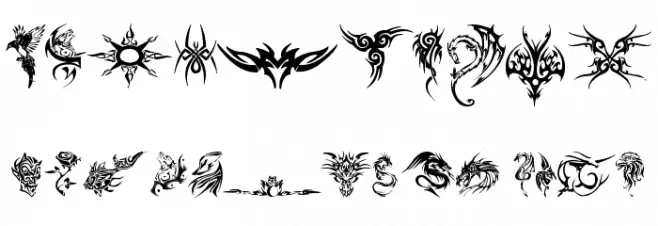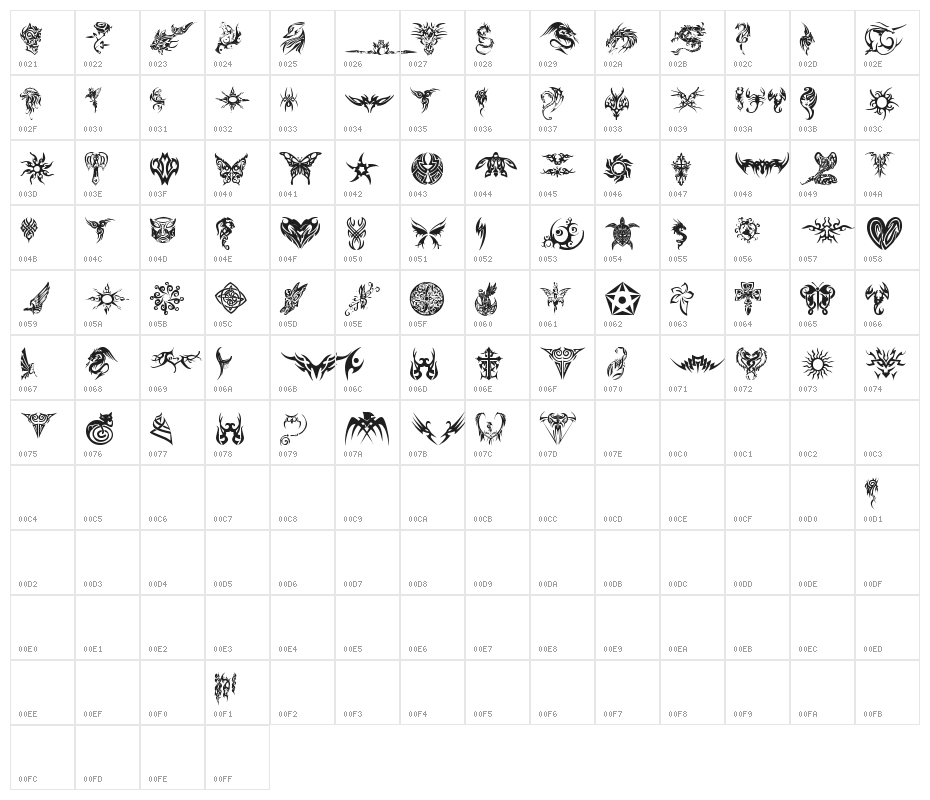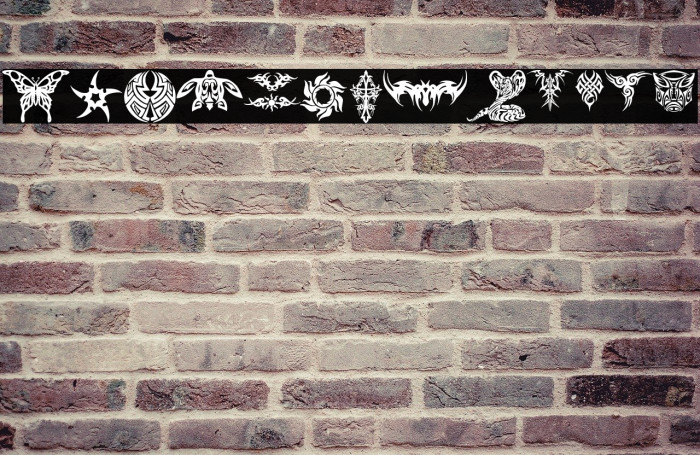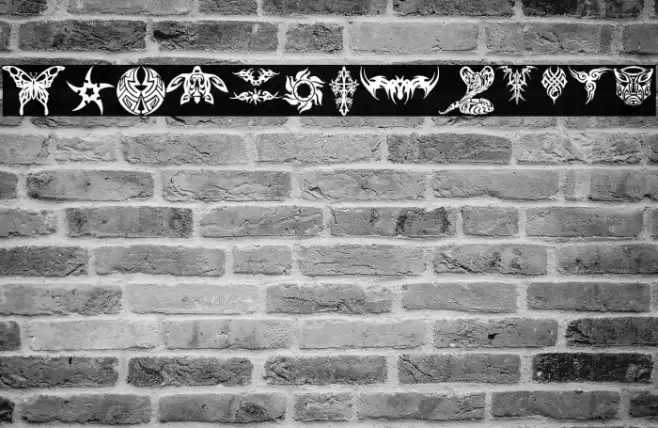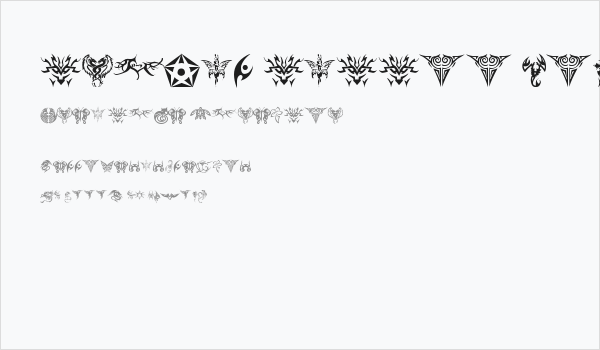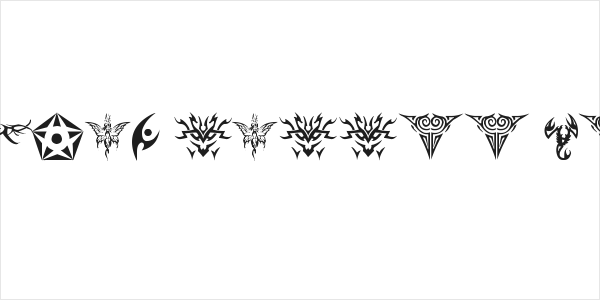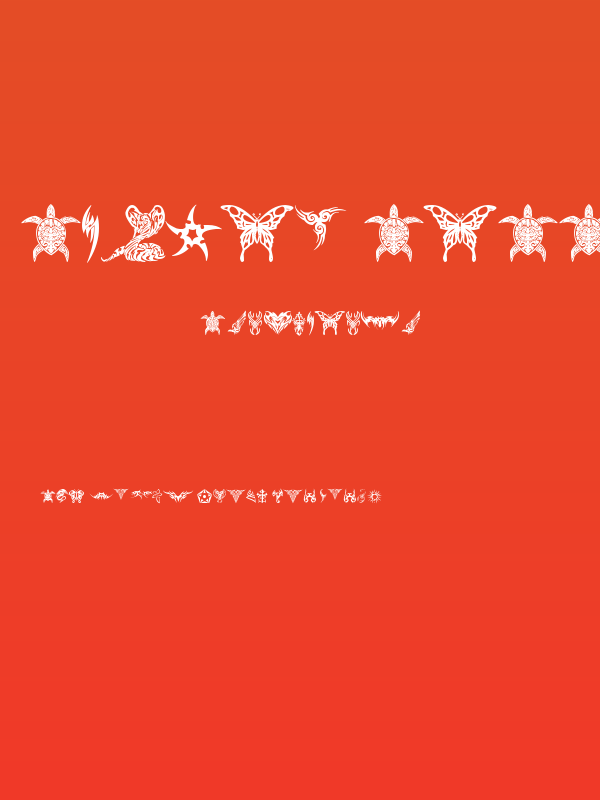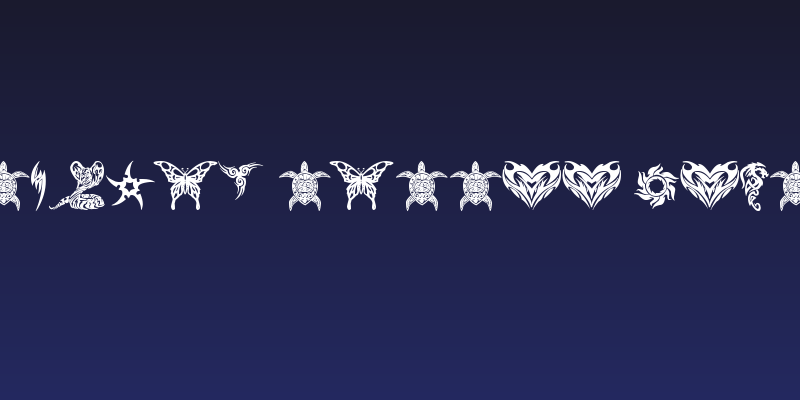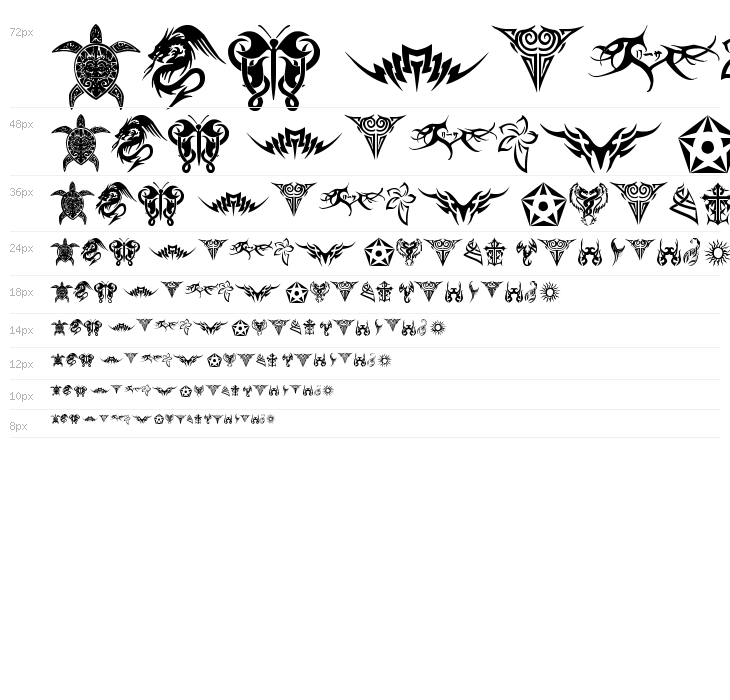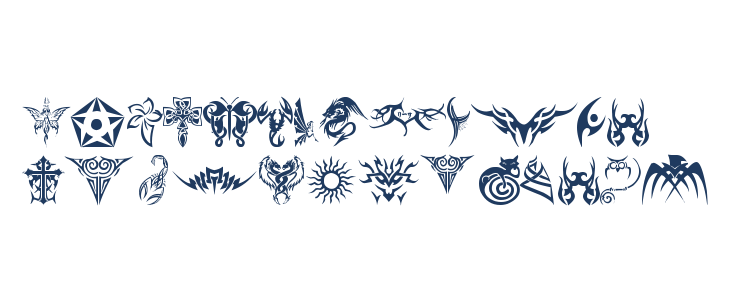
tribal tattoo font Font
tribal tattoo font Description
A collection of highly decorative, intricate tribal tattoo-inspired symbols and motifs, featuring bold, abstract, and organic shapes with sharp points and curves. The designs are not standard alphanumeric characters but rather ornamental illustrations.
| Overall Style | Decorative, Tribal, Ornamental |
| Use Case | Decorative graphics, tattoo art, logos, posters |
| Proposed Projects | Tattoo design references, decorative graphics, themed posters, branding for edgy or alternative products. |